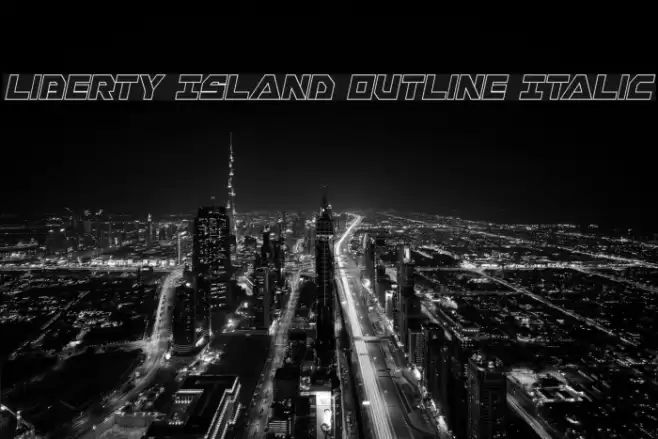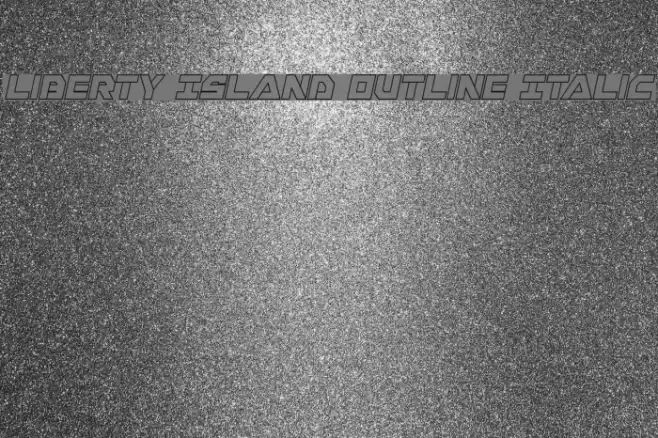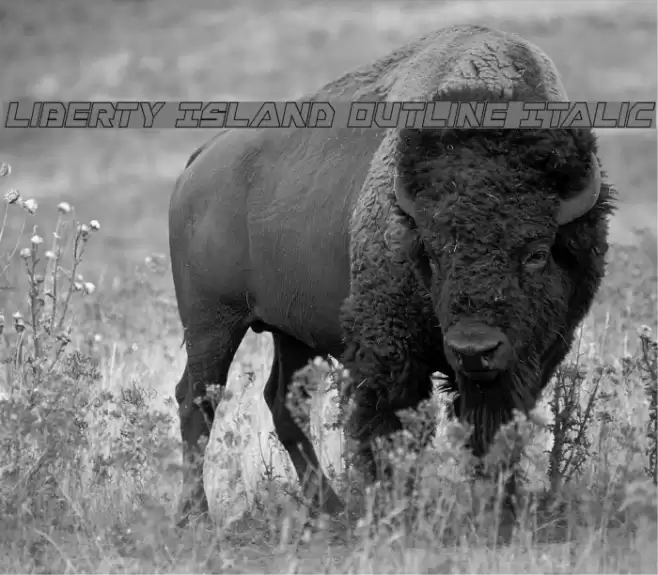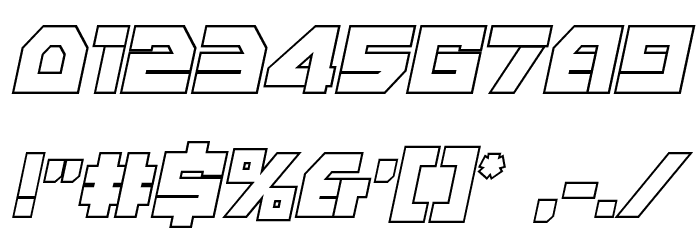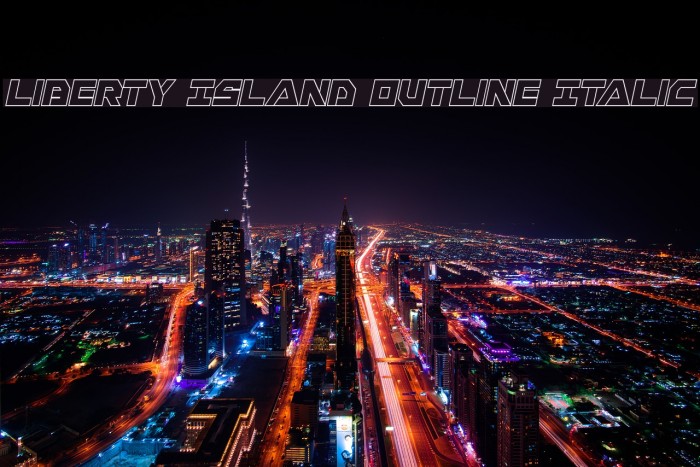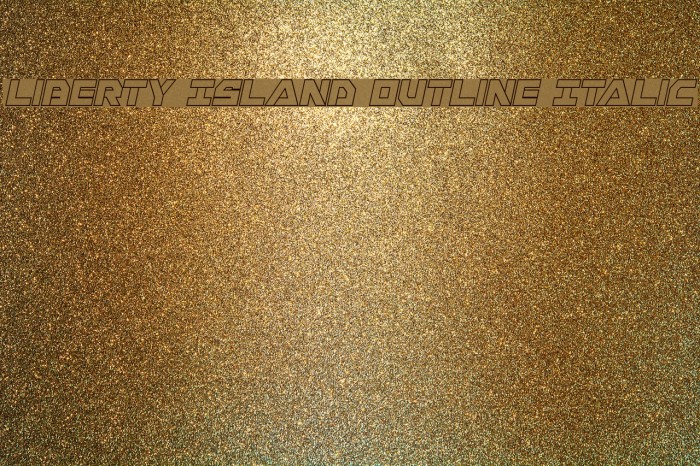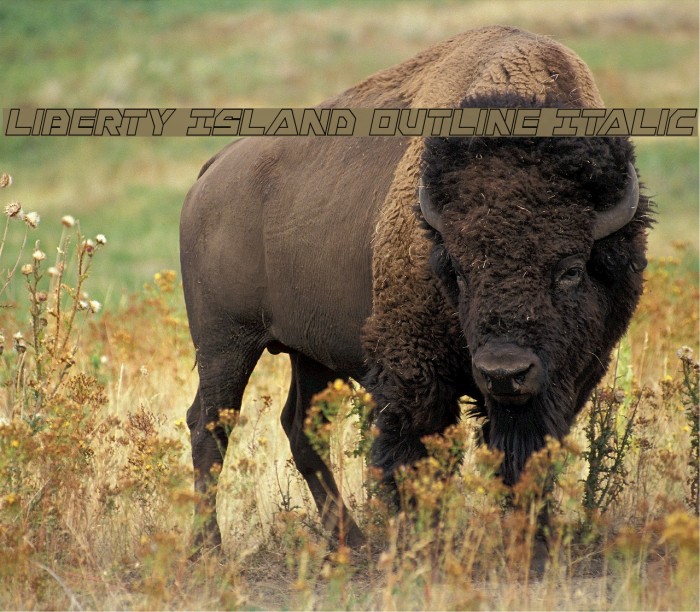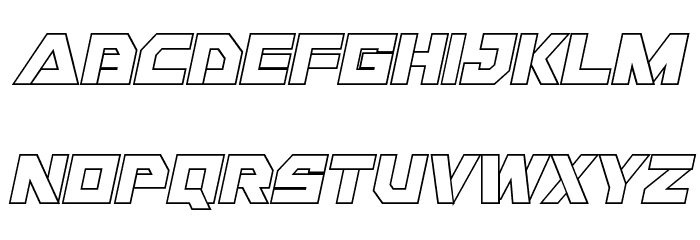
Liberty Island Outline Italic Font
Liberty Island Outline Italic Description
This font features a bold, geometric design with an outline style that gives it a modern and futuristic appearance. The italic slant adds a dynamic and forward-moving feel, making it ideal for projects that require a sense of motion or progress. Each character is constructed with sharp angles and clean lines, creating a sense of precision and clarity. The uppercase and lowercase letters maintain a consistent style, ensuring uniformity across different text elements. The numerals and special characters are designed to match the overall aesthetic, providing a cohesive look. This font's unique outline and italic characteristics make it stand out, making it suitable for eye-catching designs.
A bold, geometric outline font with an italic slant, offering a modern and dynamic appearance from Uncategorized fonts.
- Proposed Projects: Ideal for futuristic branding, tech-related designs, posters, and digital media projects.